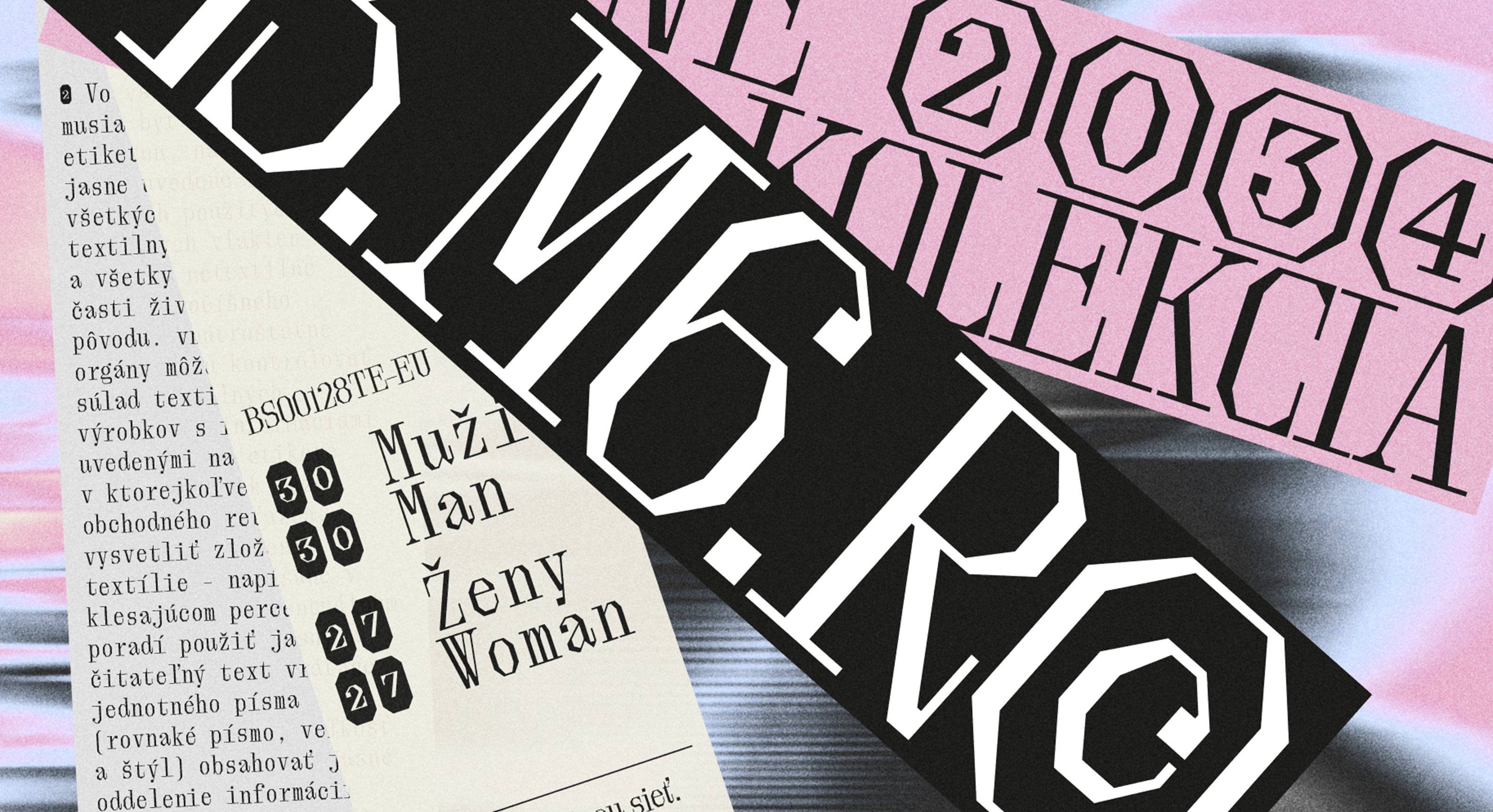
OT Brut offers an unexpected alternative to today’s (and yesterday’s) high-contrast serifs, full of fascinating discretionary ligatures, linkable serif characters, and coding abbreviations within its mono styles.
- Regular
- Italic
- Regular Mono
- Italic Mono
Jacques mistook the Hayward Gallery for a vulcanized shoeboxes pile.
Although Bodoni is synonymous with fashion, nowadays, fashion doesn’t look much like Bodoni. Flipping the genre-defining neoclassical classic on its head, OT Brut reimagines the traditional drops of Bodoni as something more brutalist and angular, creating a curveless, characterful, constructed design suited for contexts beyond the runway.
OT Brut offers an unexpected alternative to today’s (and yesterday’s) high-contrast serifs, befitted with fascinating discretionary ligatures, and mighty mono styles. Providing rigid construction and handy tools for creating exciting, interlocking compositions of type. Your brutal bestie.